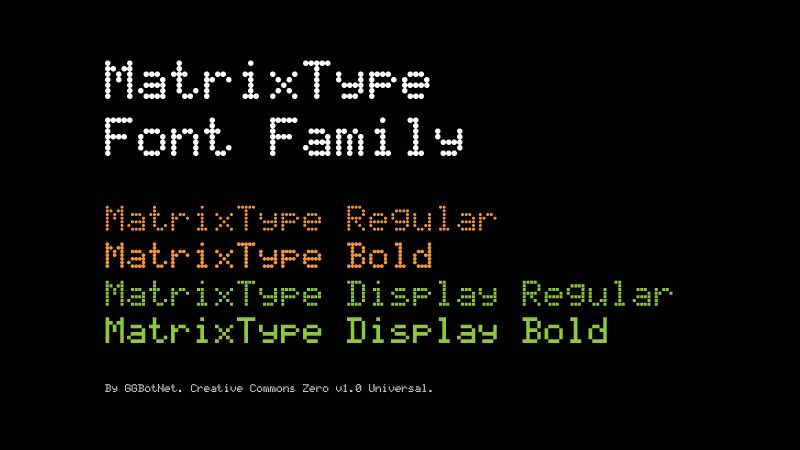
MatrixType Display Bold
MatrixType Display Bold font by GGBotNet is a bitmap font that embodies a pixelated, blocky design. With its geometric and digital-inspired style, it carries a distinct retro-futuristic aesthetic that evokes an old-school arcade games atmosphere. The technological feel of this typeface is best shown in the simple yet playful character details.
This free credible typeface goes well in titles, posters, packaging designs, books covers and headers. The font is suitable for branding projects including advertising designs like flyers and brochures. Use it in labels making as well or other related product design needs for instant quality results without much effort!